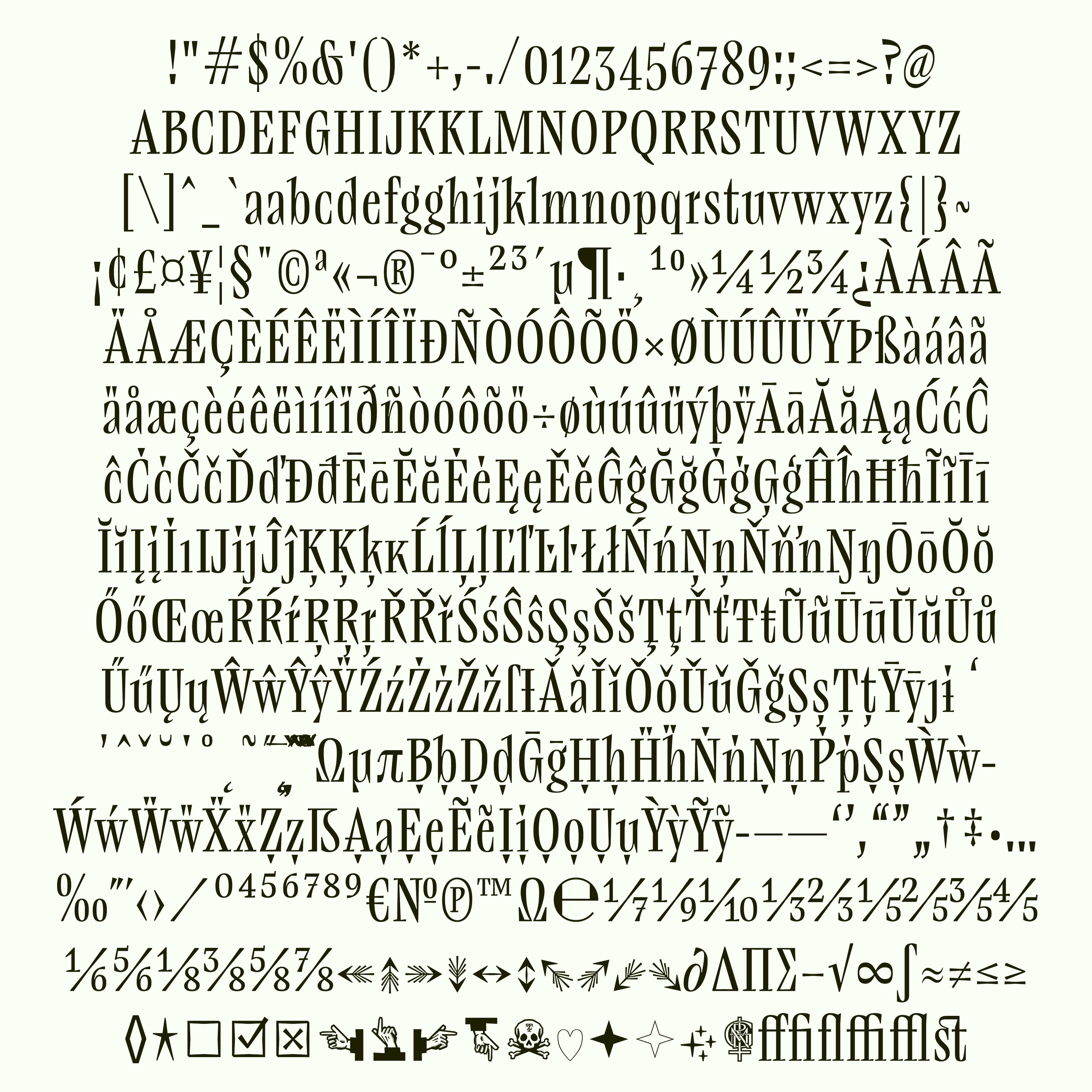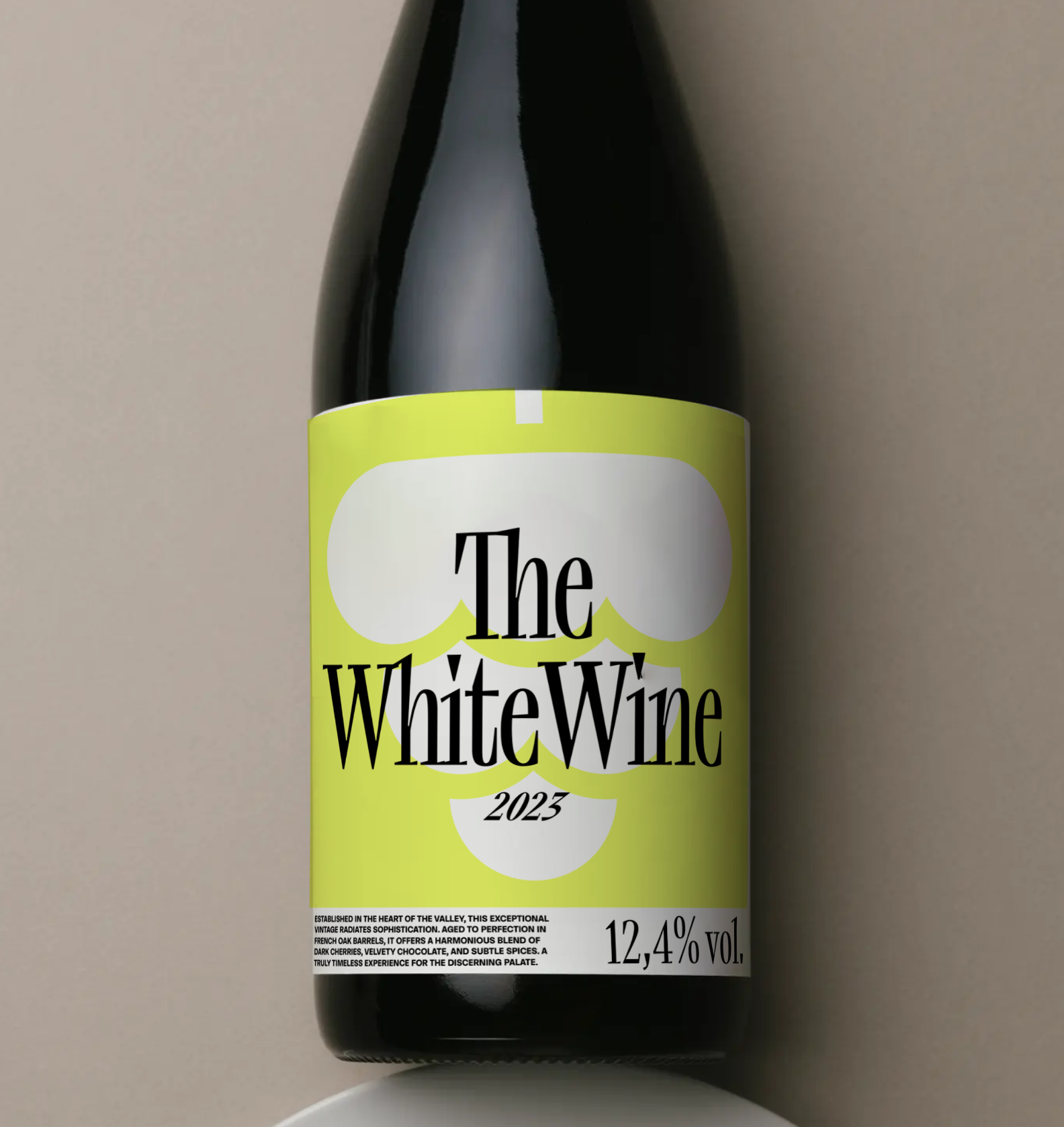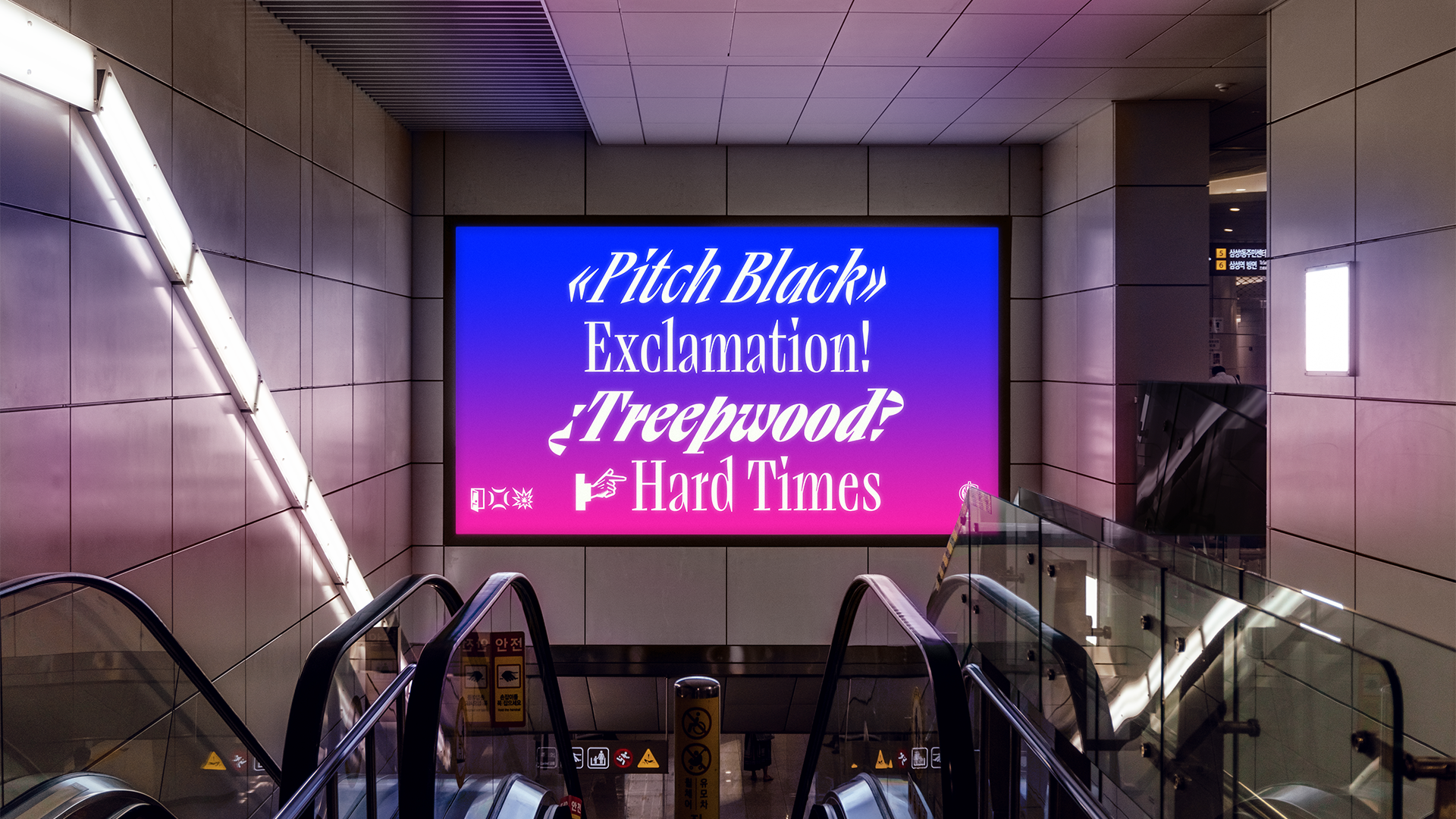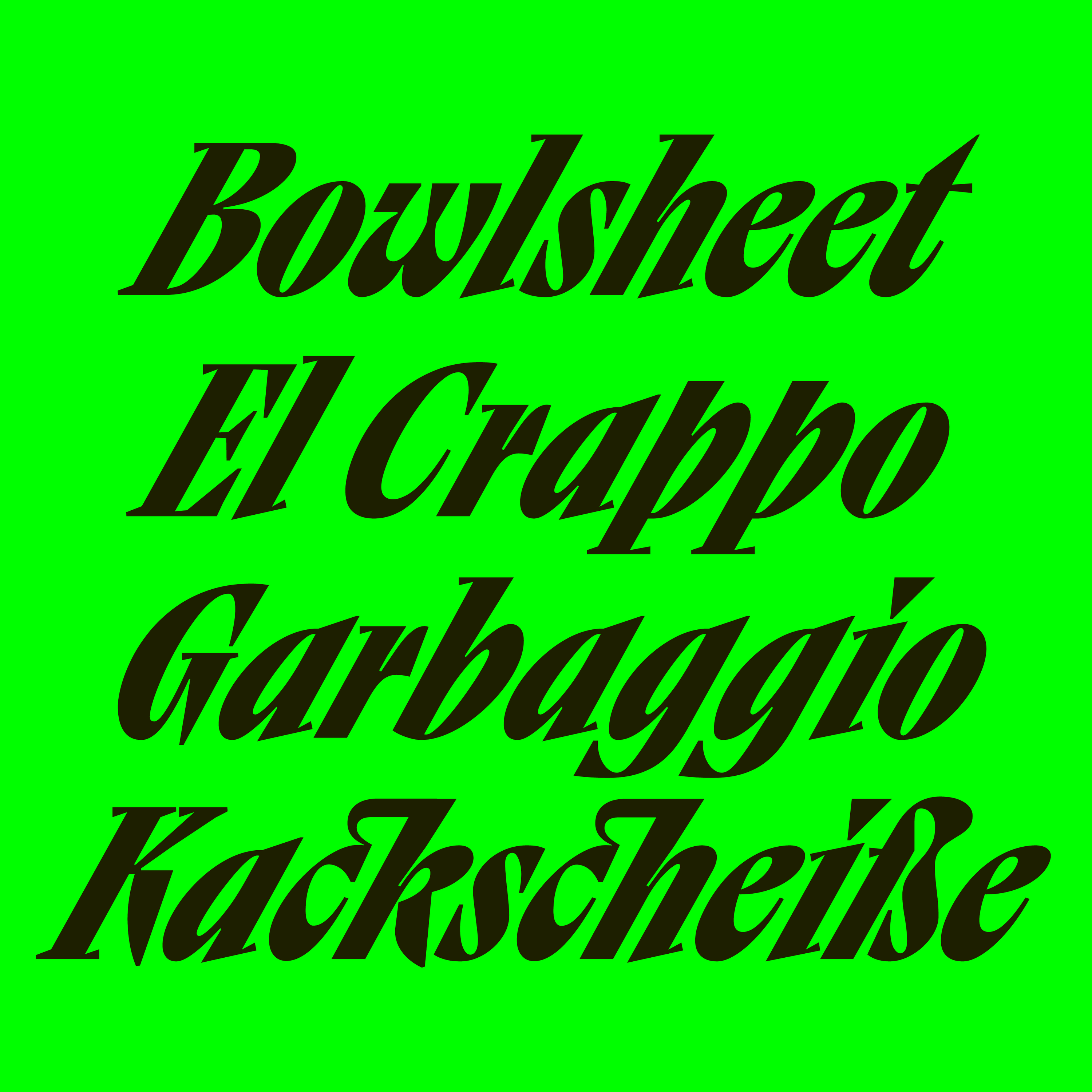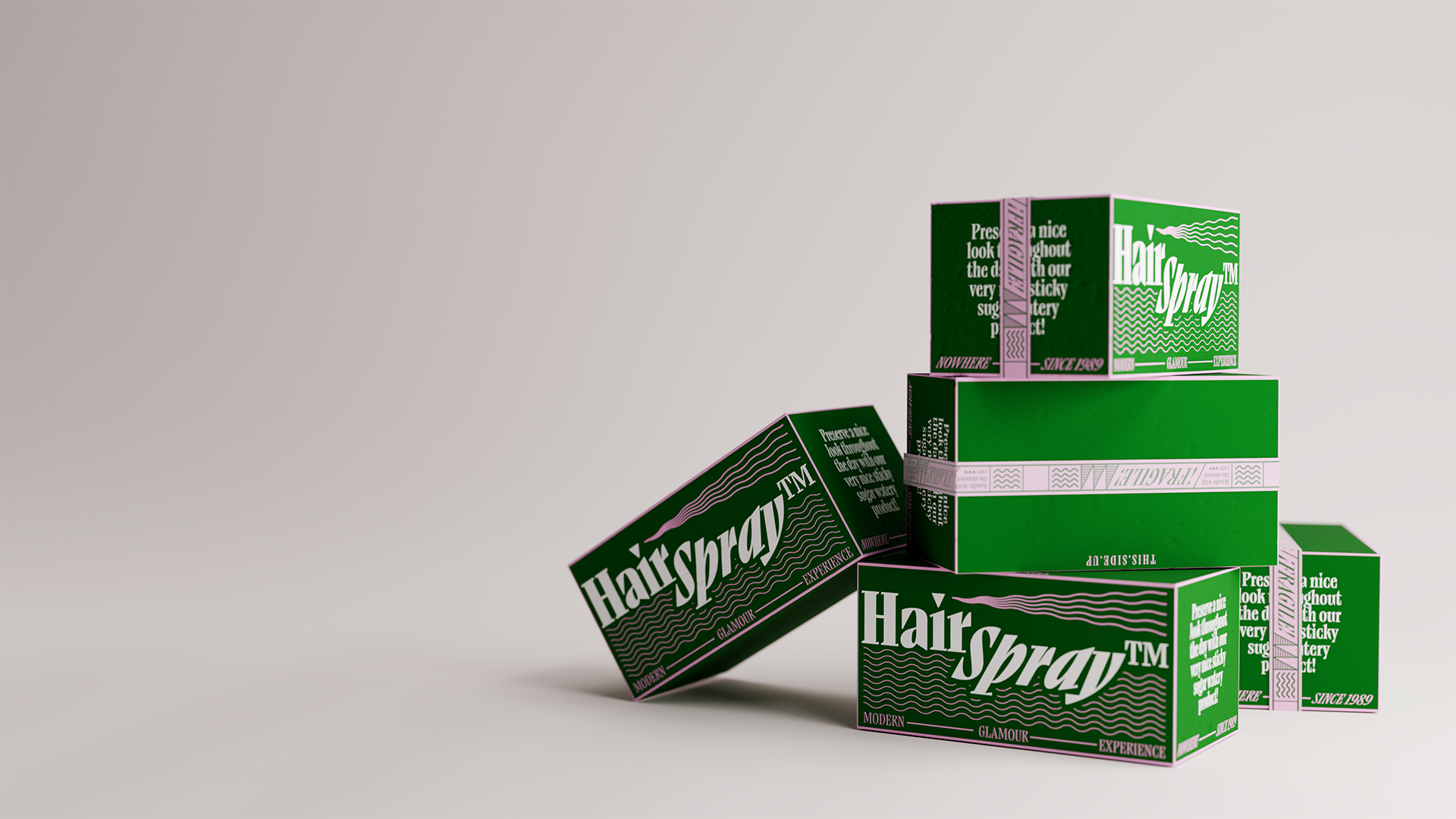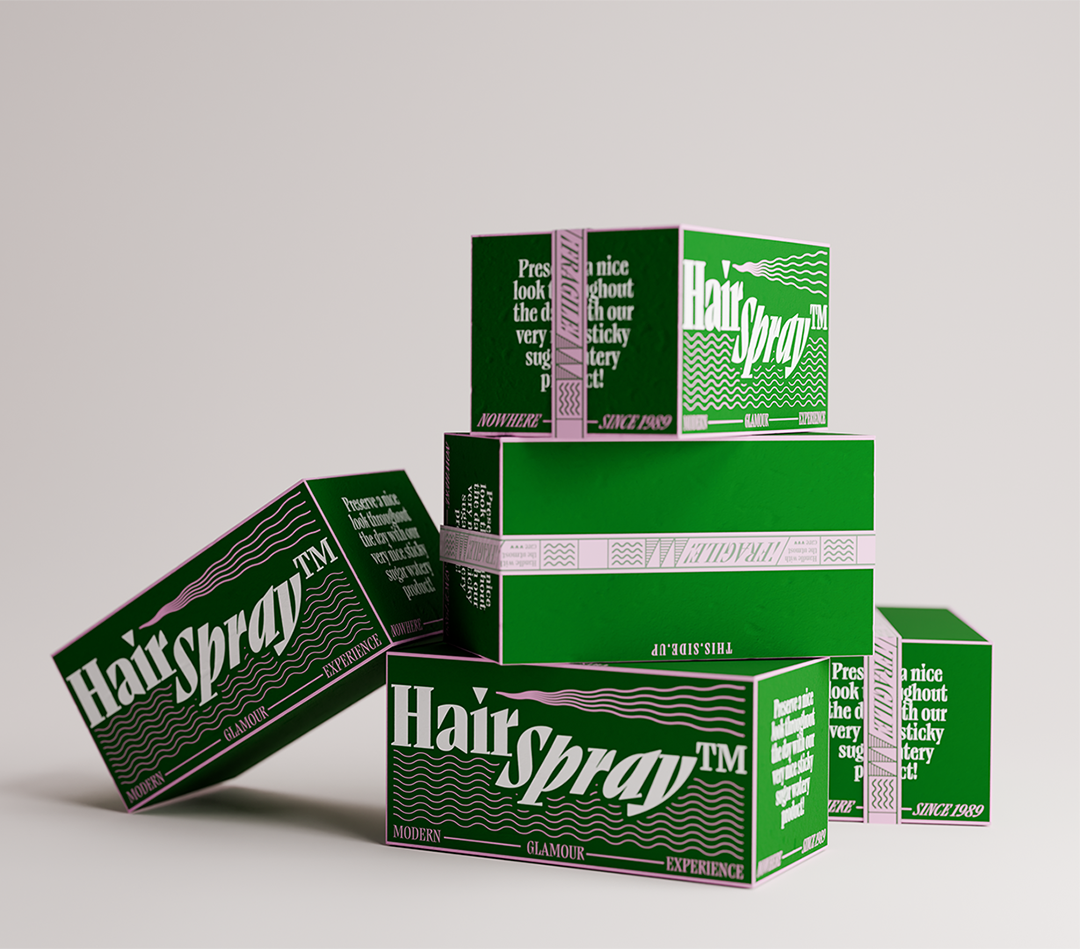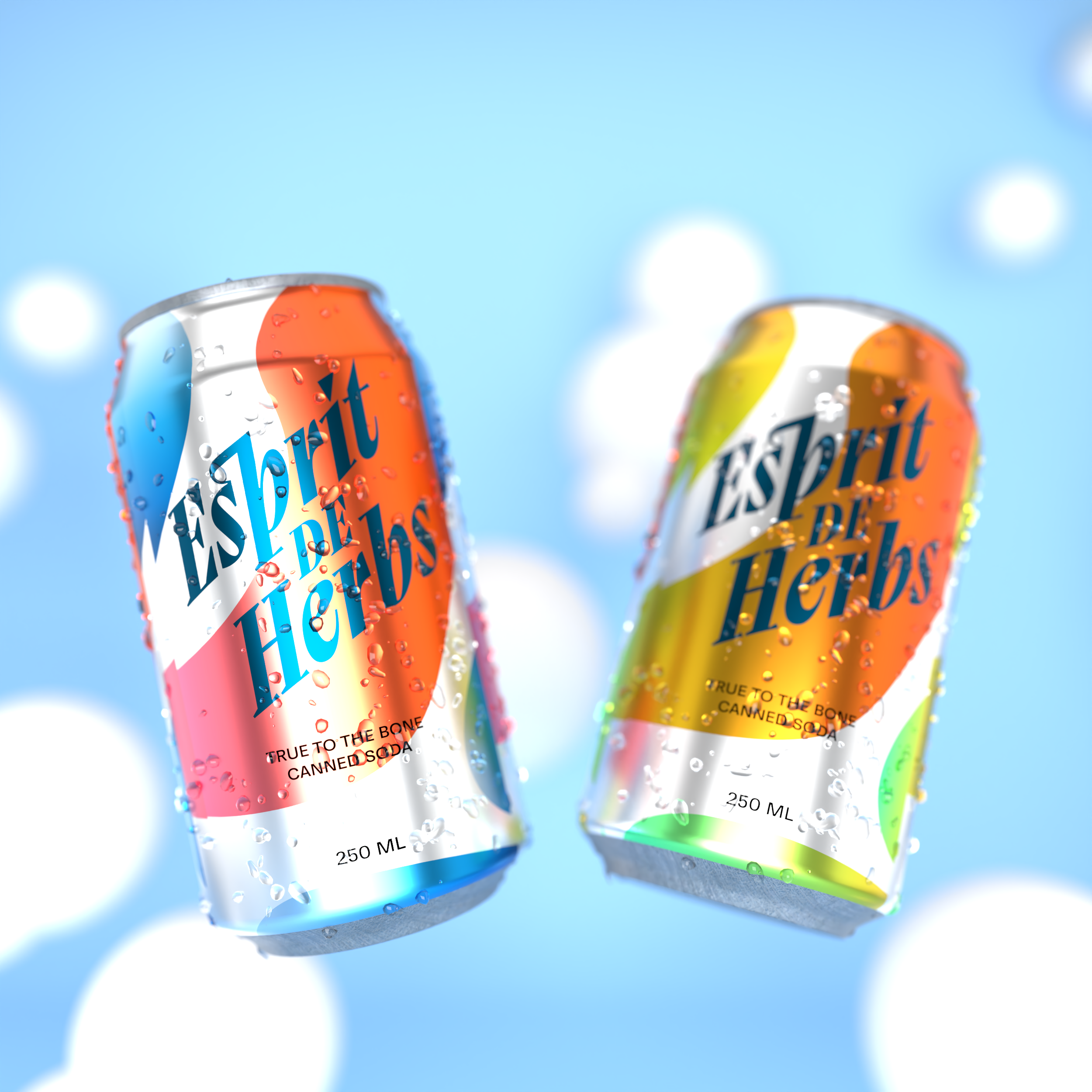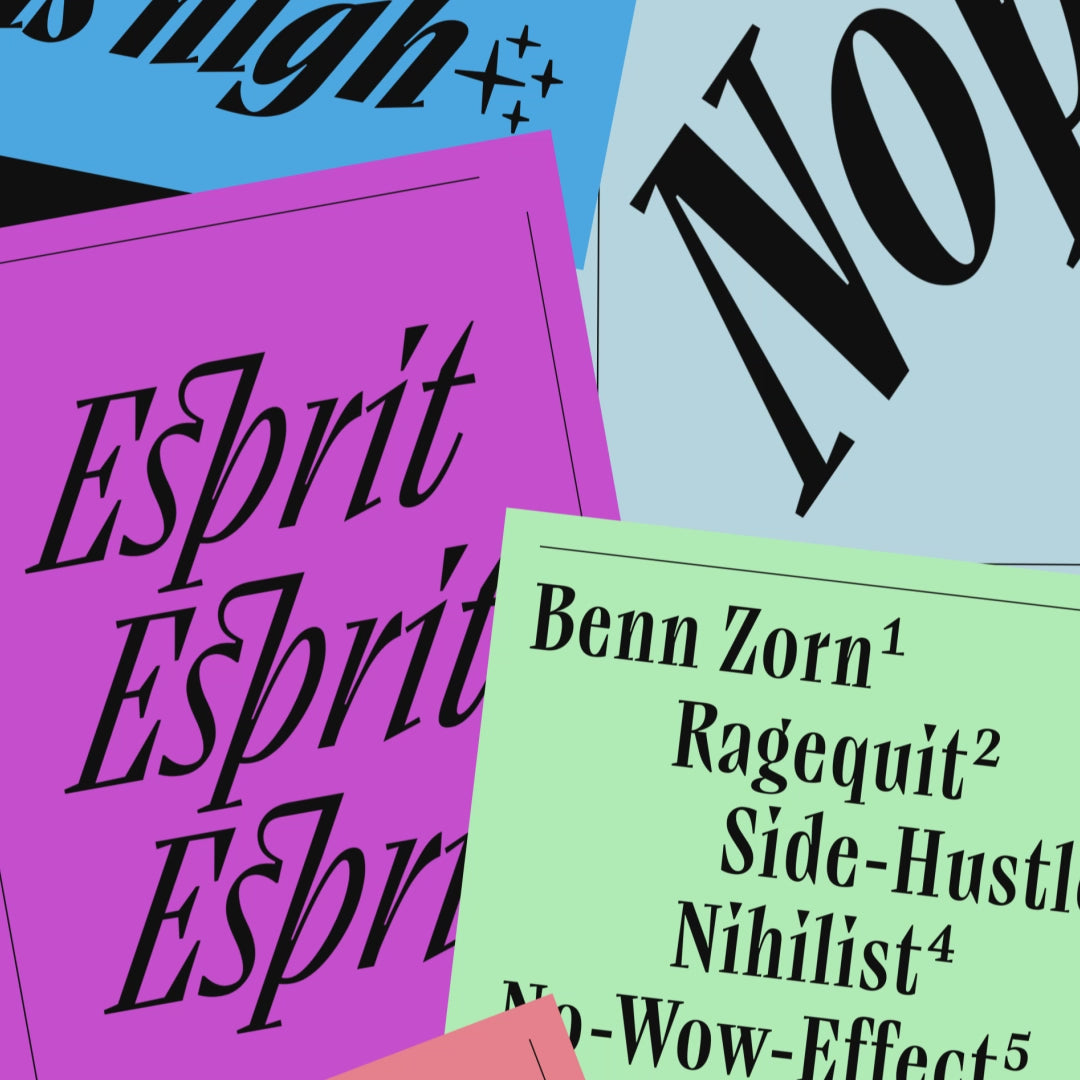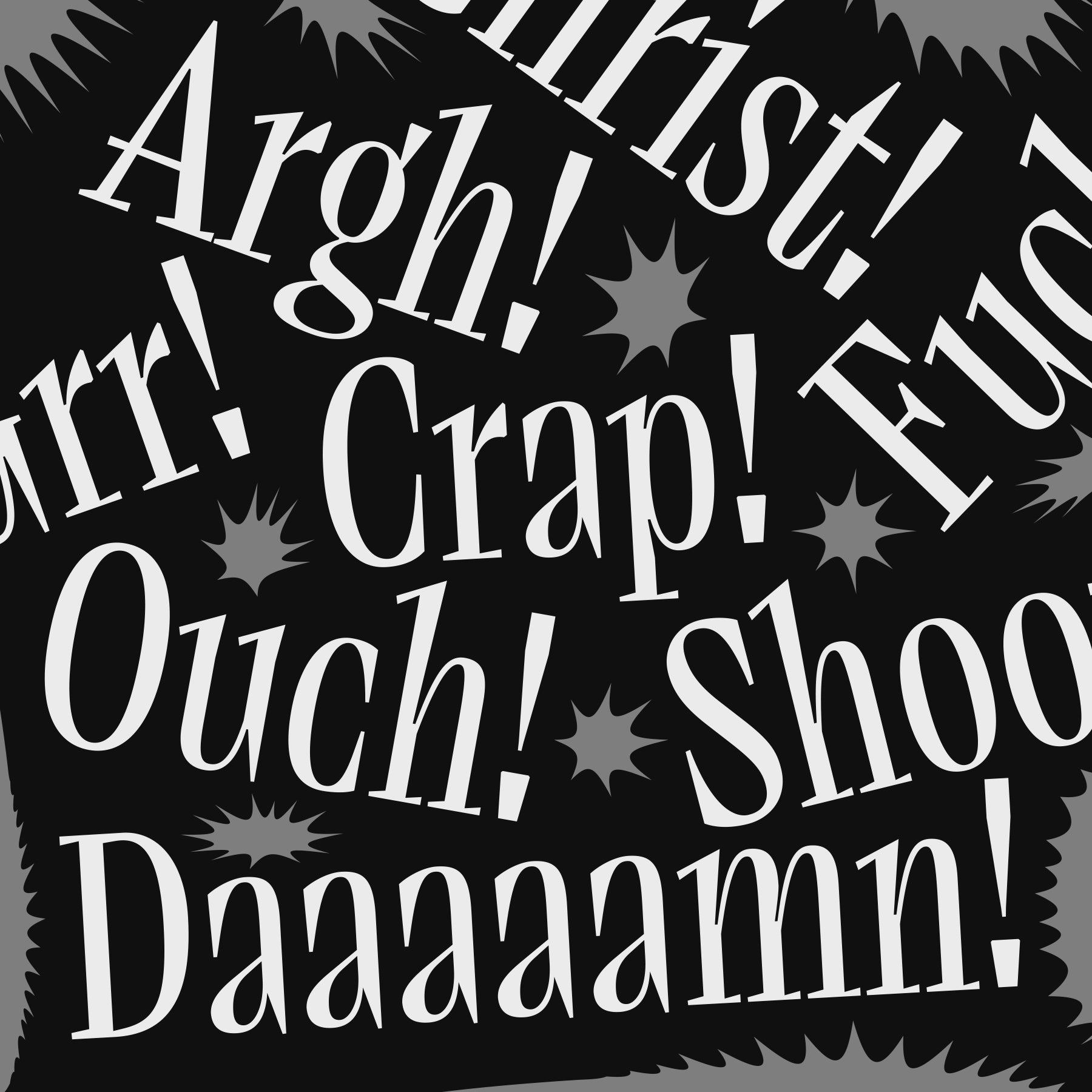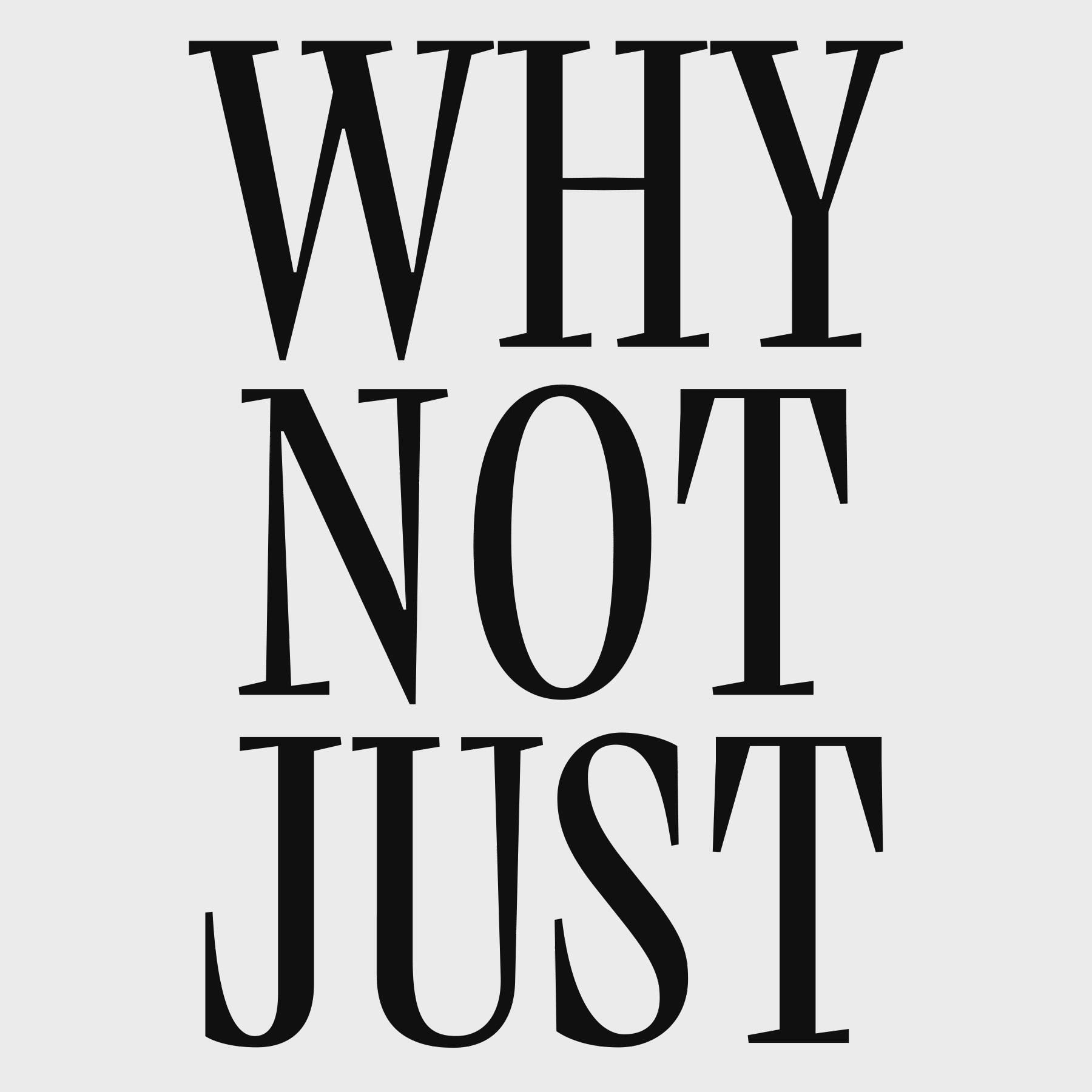
Ragequit
»It’s like doing push-ups in a tuxedo!«
— Benn Zorn
Ragequit
Ragequit is a mildly hysteric expansion contrast typeface that balances the elegant with the obscure. Its razor-sharp features, pointy ends and cramped metrics make it a slightly bizarre but vaguely elegant statement. While still maintaining a sense of elegance in the lighter styles, the darker weights give your design enough to chew. Accompanied with 29-degree-crazy Italics, from horror movie titles to birthday cards for rebellious teenage edgelords to overpriced perfume bottle branding, Ragequit can be charming or snooty, tasteful or punky, quite loud or very loud. Its art-nouveau-derived capitals let you noisily CAPSLOCK everything you want to emphasize in a fierce, but sophisticated manner.
It is like doing push-ups in a tuxedo!